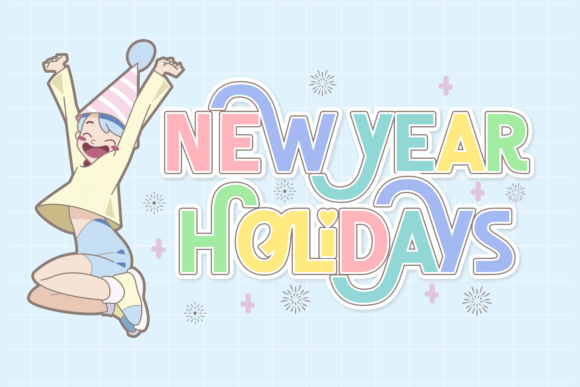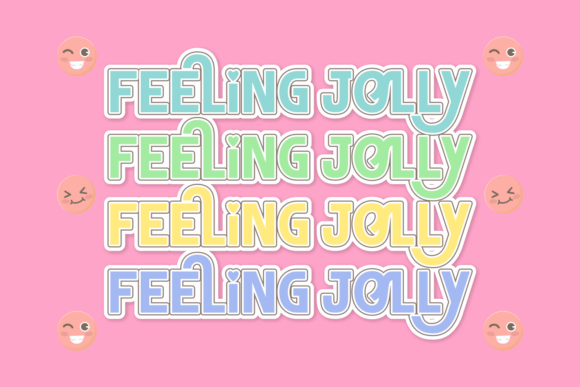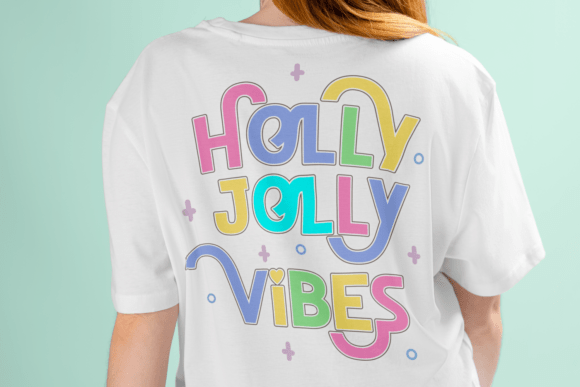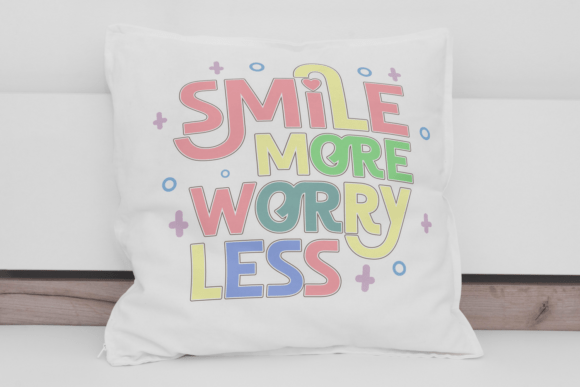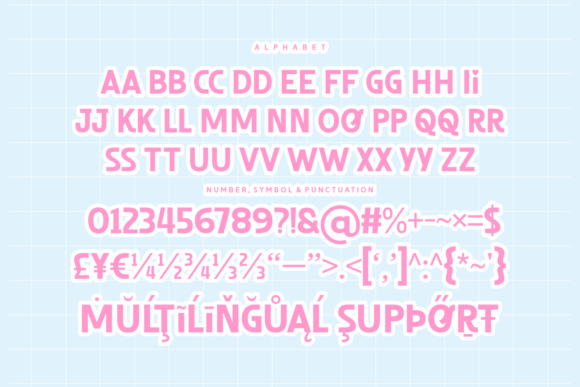
Get Ready to Unwrap the Joy of Holiday Design
Have you ever sat at your desk, surrounded by blank papers and scattered ideas, and suddenly felt a spark of inspiration? Maybe it was a festive holiday card that caught your eye, or the warm glow of twinkling lights on a winter night. Whatever it was, it lit a fire within you to create something special – something that captures the essence of the season and brings joy to others.
That’s where the Holiday Dreams Font comes in – a beautifully crafted display font that embodies the spirit of celebrations like New Year’s, birthdays, Valentine’s Day, and Christmas. With its unique blend of western and eastern European alphabets, this font is perfect for designers looking to add a touch of authenticity and multilingual capability to their designs.
- Unique Characteristics: The font features intricate, hand-drawn designs and ornaments, adding a touch of elegance and sophistication to any project.
- Character Set: The font includes a comprehensive character set, including Latin, Greek, and Cyrillic alphabets, as well as punctuation and symbol characters.
Designer Review: Holiday Dreams Font
Overall, I think the Holiday Dreams Font is a fun and playful choice for festive designs, ✨ especially for projects that require a touch of whimsy. The font’s bright and cheerful characters will add a splash of holiday cheer to any design.
- The font’s bold and italic styles are a nice addition, allowing for some versatility in design applications.
- The font’s consistency in weight and style across different characters makes it easy to read and use.
- The font’s high level of customization options, such as the ability to change the color and size of individual characters, is a nice touch.
However, I do have a few concerns ⚠️:
- The font may be too ornate or distracting for some designs, especially those that require a more subtle or sophisticated aesthetic.
- The font’s lack of support for some special characters and punctuation marks may limit its use in certain design applications.
- The font’s size and weight may not be ideal for large blocks of text or body copy.
Overall, I think the Holiday Dreams Font is a fun and creative choice for holiday designs, but it may not be the best option for every project. With some careful consideration of the font’s limitations and strengths, designers can use it effectively to add some festive flair to their designs.
Holiday Dreams Font is perfect for creating festive and holiday-themed designs, such as:
– Christmas cards and invitations
– Holiday party decorations and signage
– Winter wonderland-themed websites and social media graphics
– Seasonal marketing materials and promotions
Tips for Getting the Most Out of Holiday Dreams Font
To get the most out of Holiday Dreams Font, try experimenting with different font sizes, colors, and combinations. You can also pair it with other festive fonts to create a unique and eye-catching design.